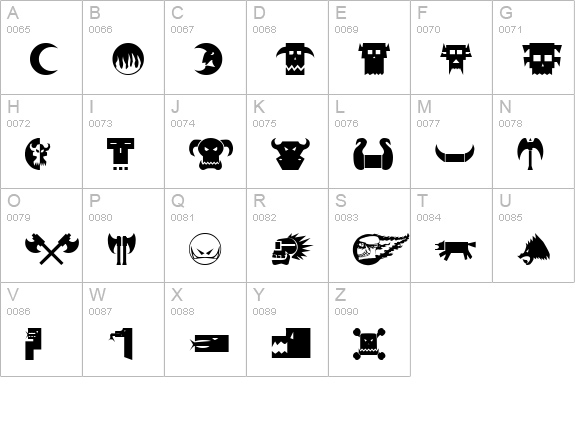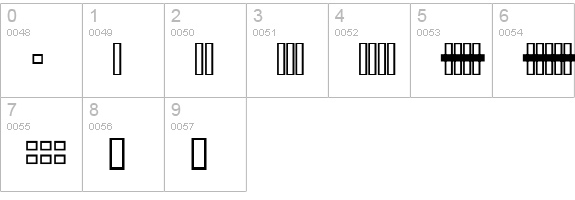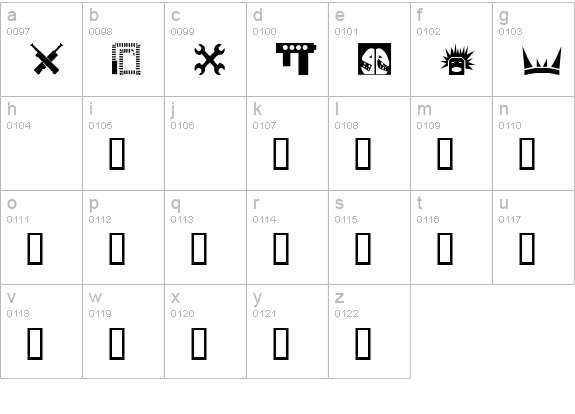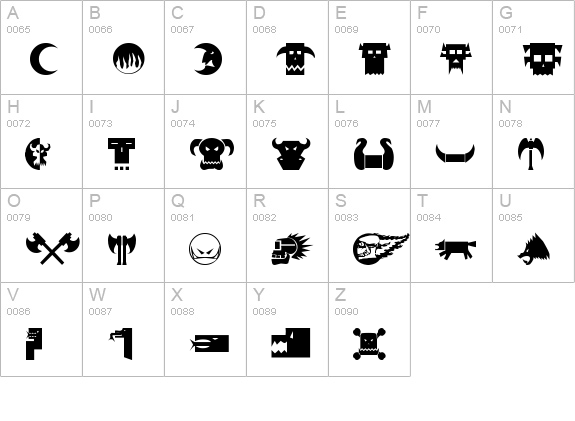
Orky 1 Font Details
Orky 1 font is a whimsical and playful typeface that exudes creativity and charm. Its quirky design and unique style make it perfect for adding a touch of fun to any project. With its bold and eye-catching letters, Orky 1 font is sure to make a statement and capture the attention of your audience. Whether you're designing a poster, logo, or website, this font will bring a touch of personality and originality to your work. The best part? Orky 1 font is completely free to download at FontsMarket.com. Don't miss out on this fantastic opportunity to enhance your designs with this delightful and free-spirited font. Download Orky 1 font today and let your creativity shine!